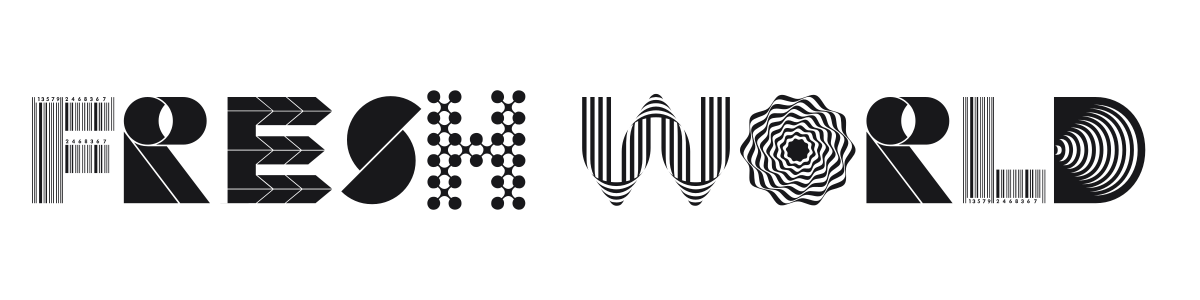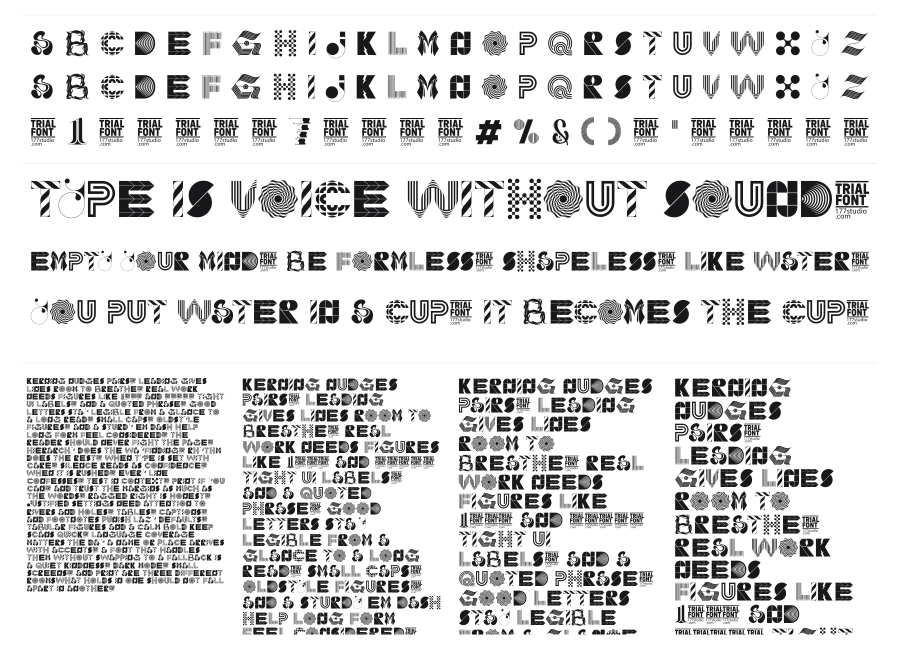
Fresh World
Fresh World is a mixed-pattern novelty display font where every character wears a different visual texture, from checkerboard grids and spiral Op Art to barcodes and organic fills. Each letter shares the same bold, blocky silhouette while its interior tells a completely different story. The result is chaotic in the best possible way, built for posters, covers, and anywhere a headline needs to command attention.